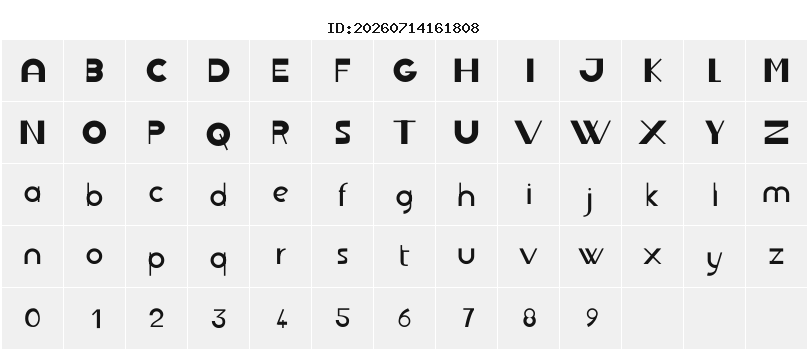
JBRond Preview
• Font Name: JBRond
• Full Font Name: JBRond
About JBRond.ttf
JBRond.ttf is a modern, elegant sans-serif font designed for ultimate readability and visual harmony. Perfect for branding, headlines, web design, and print materials.